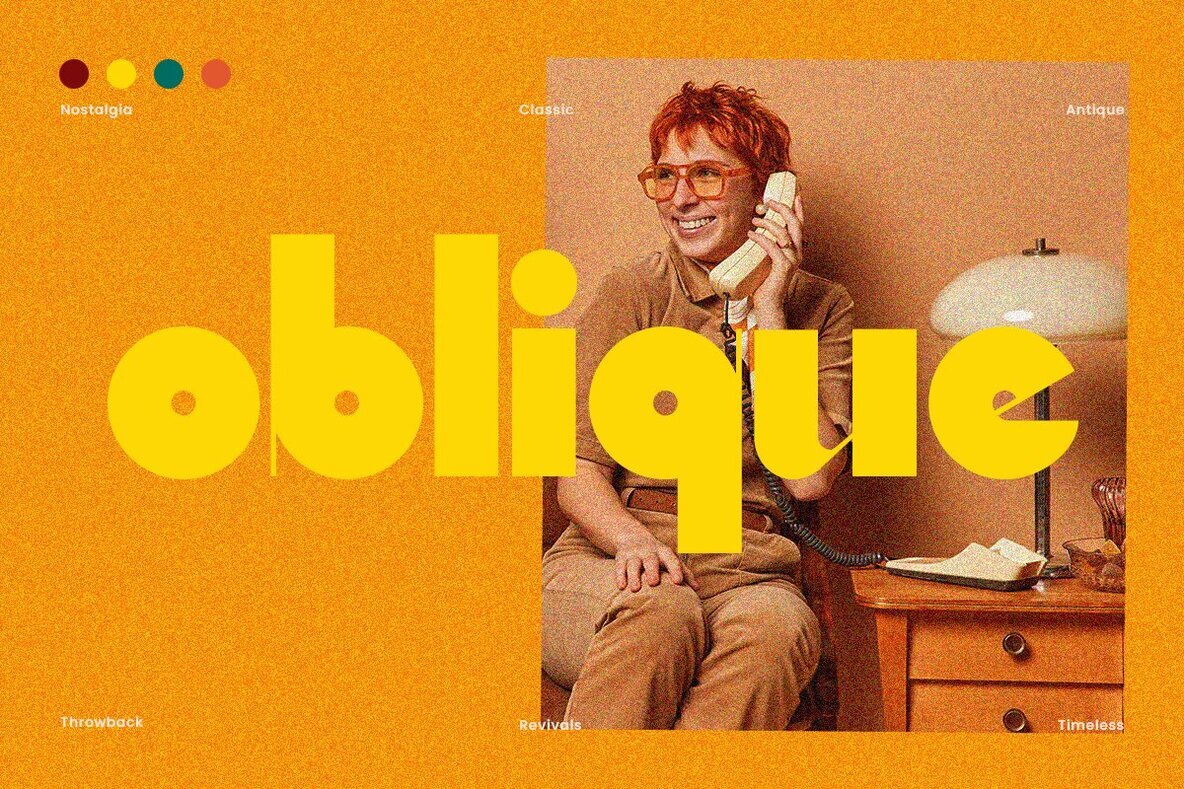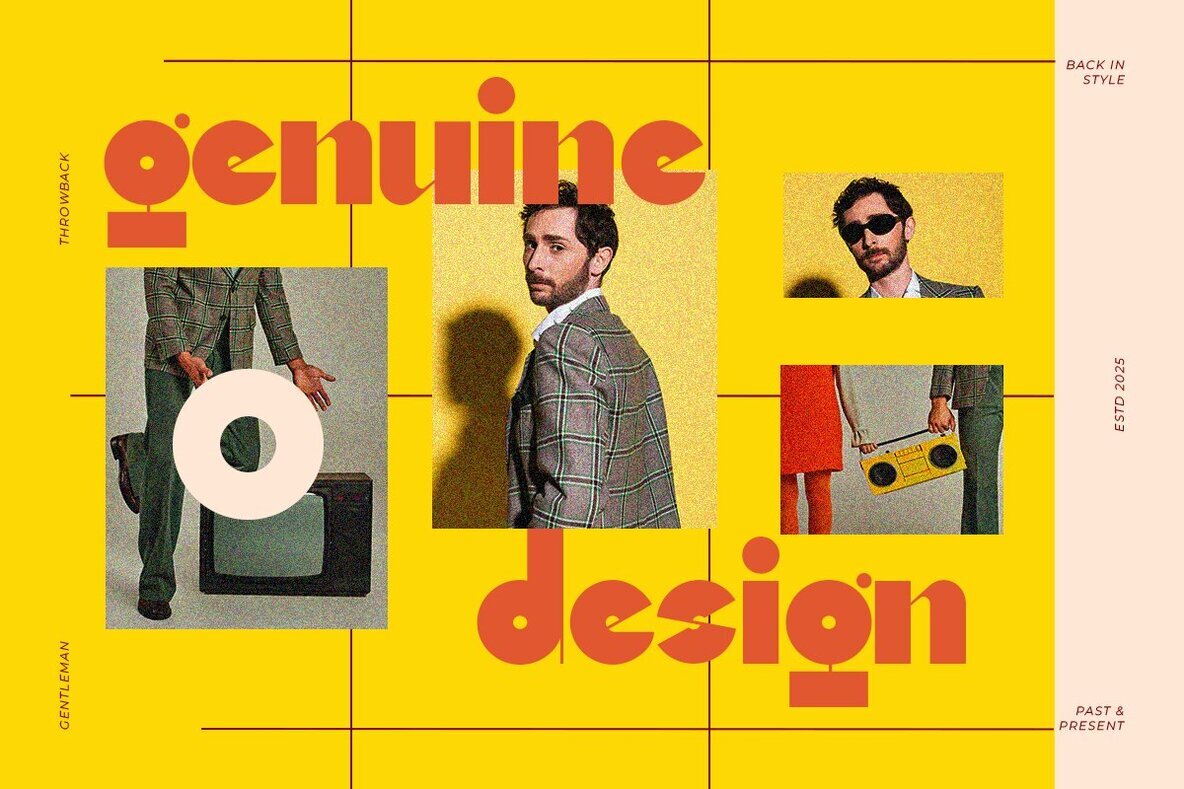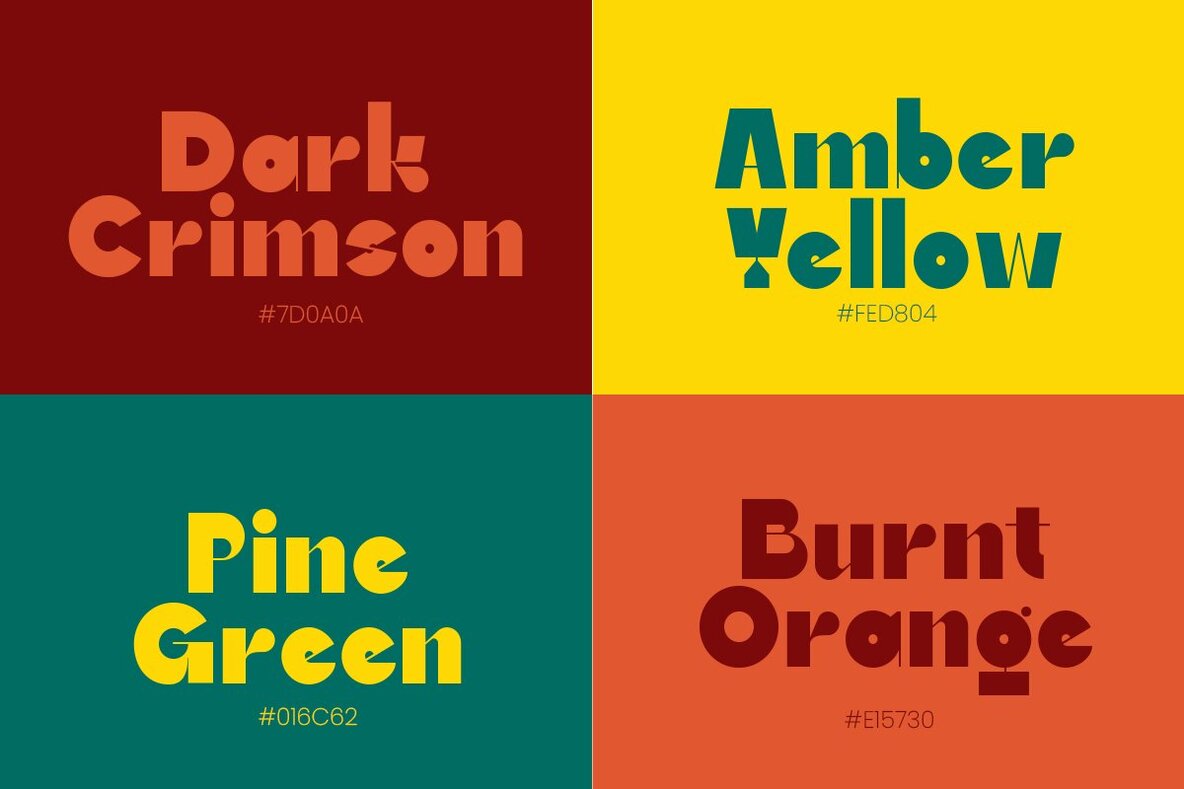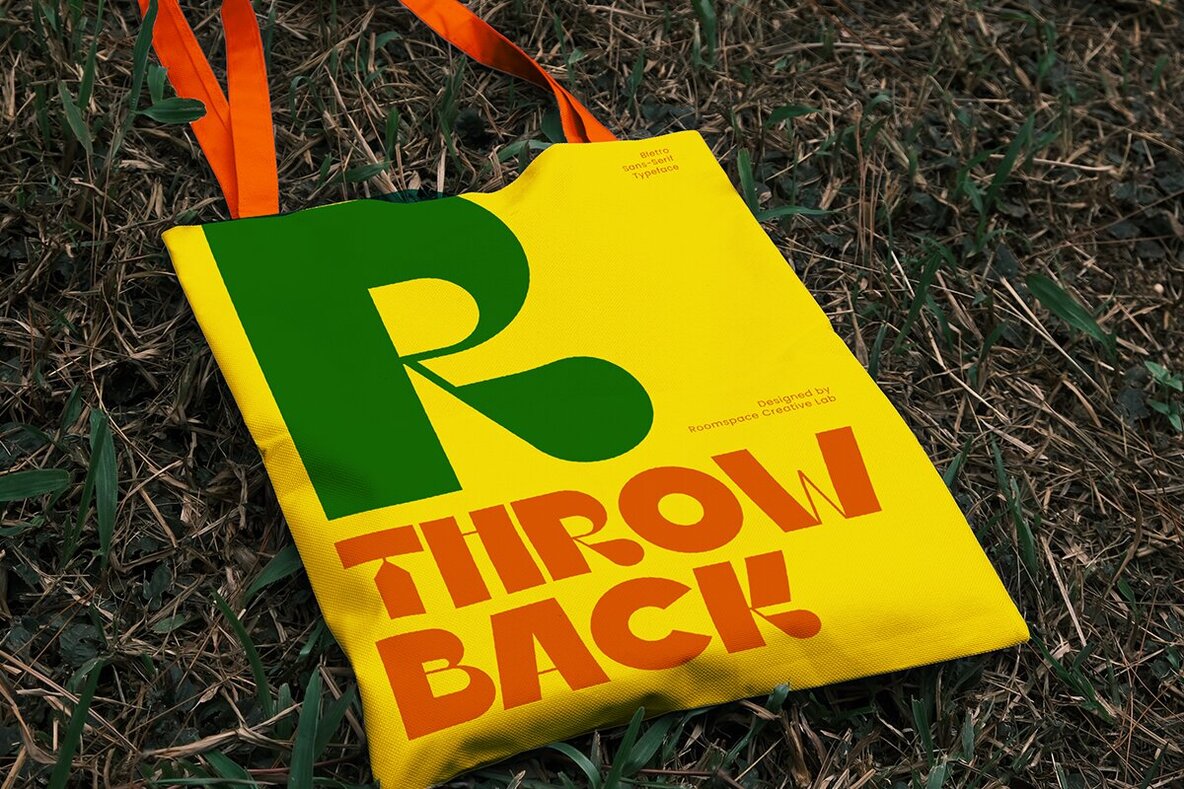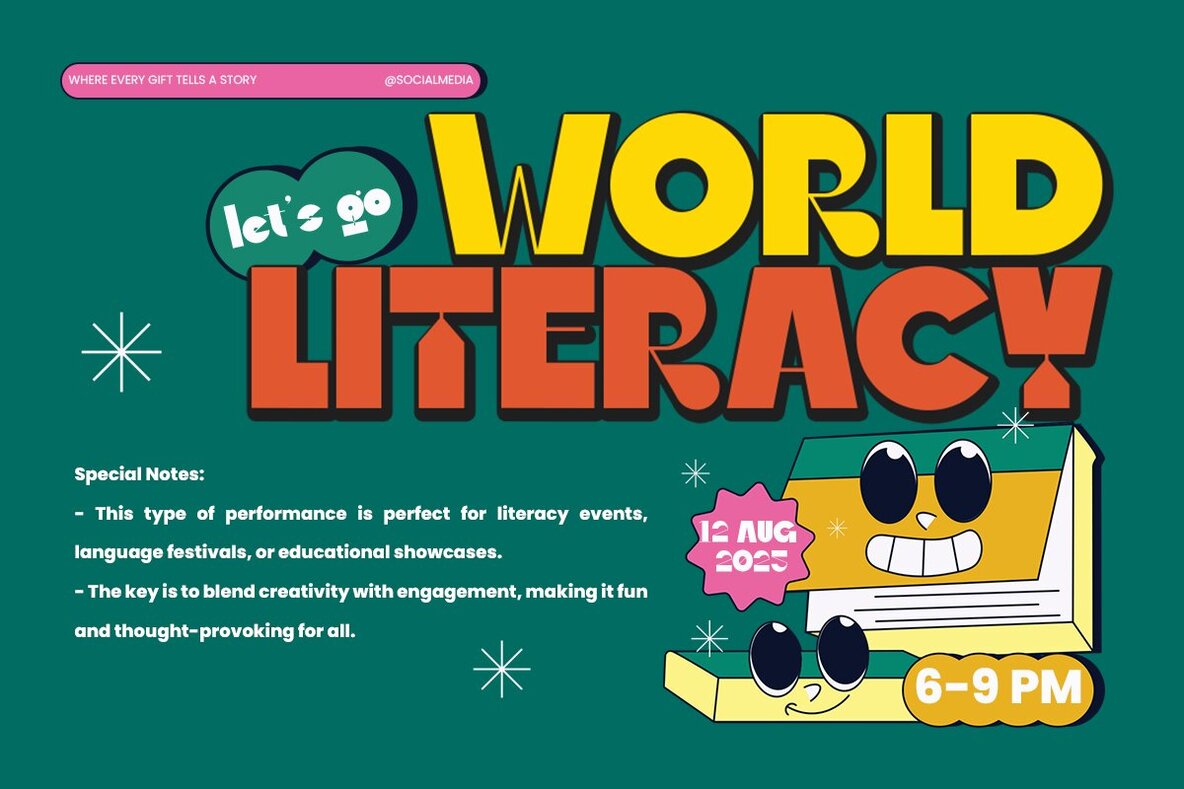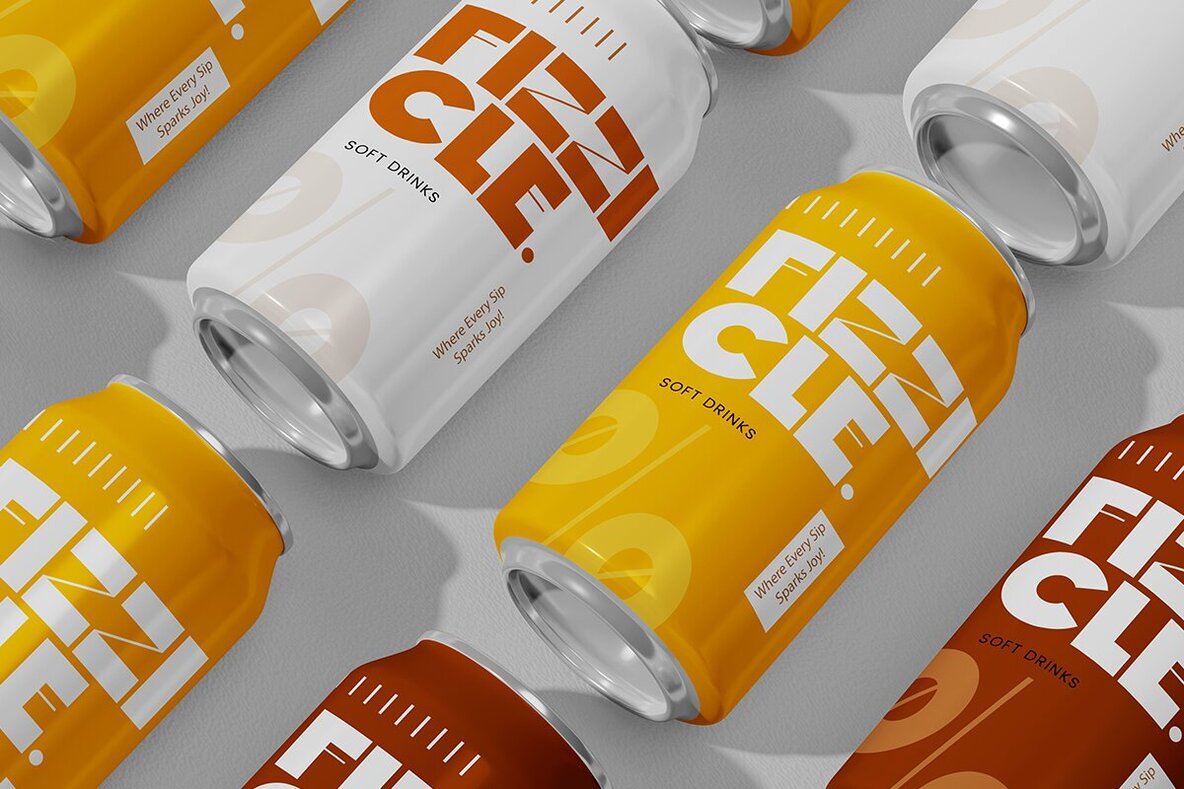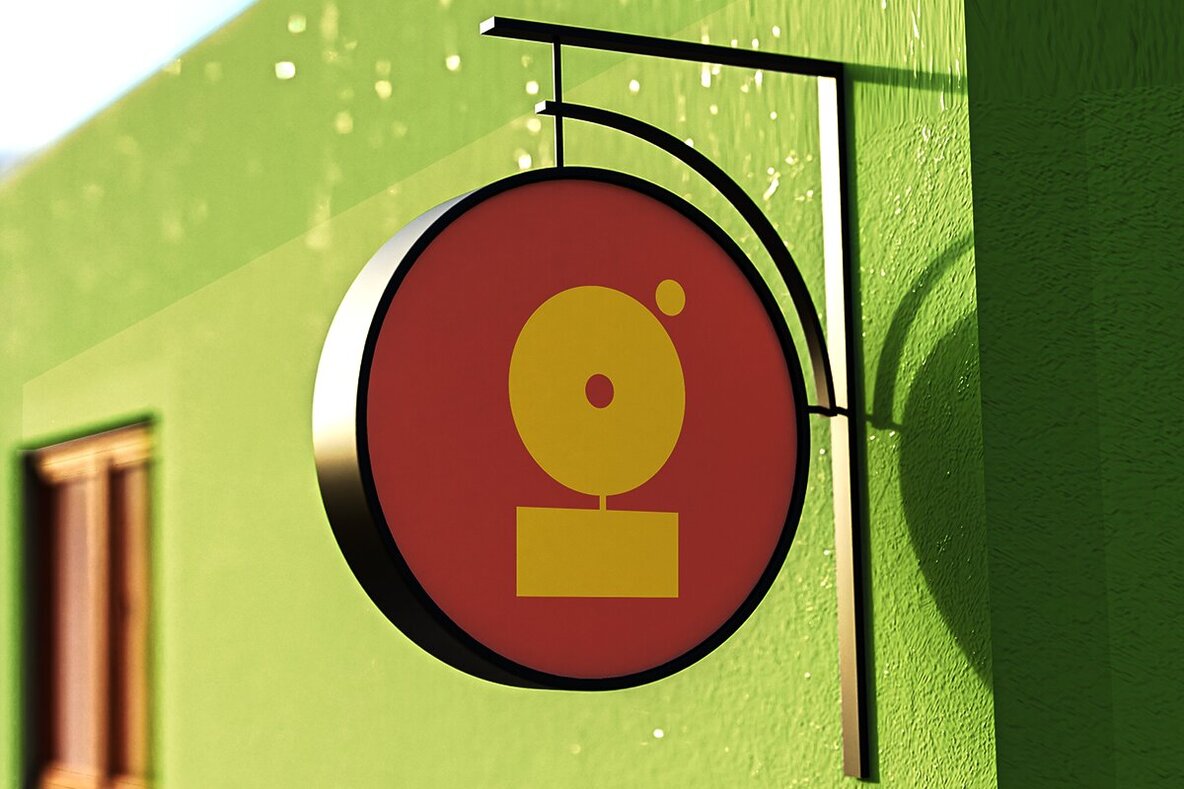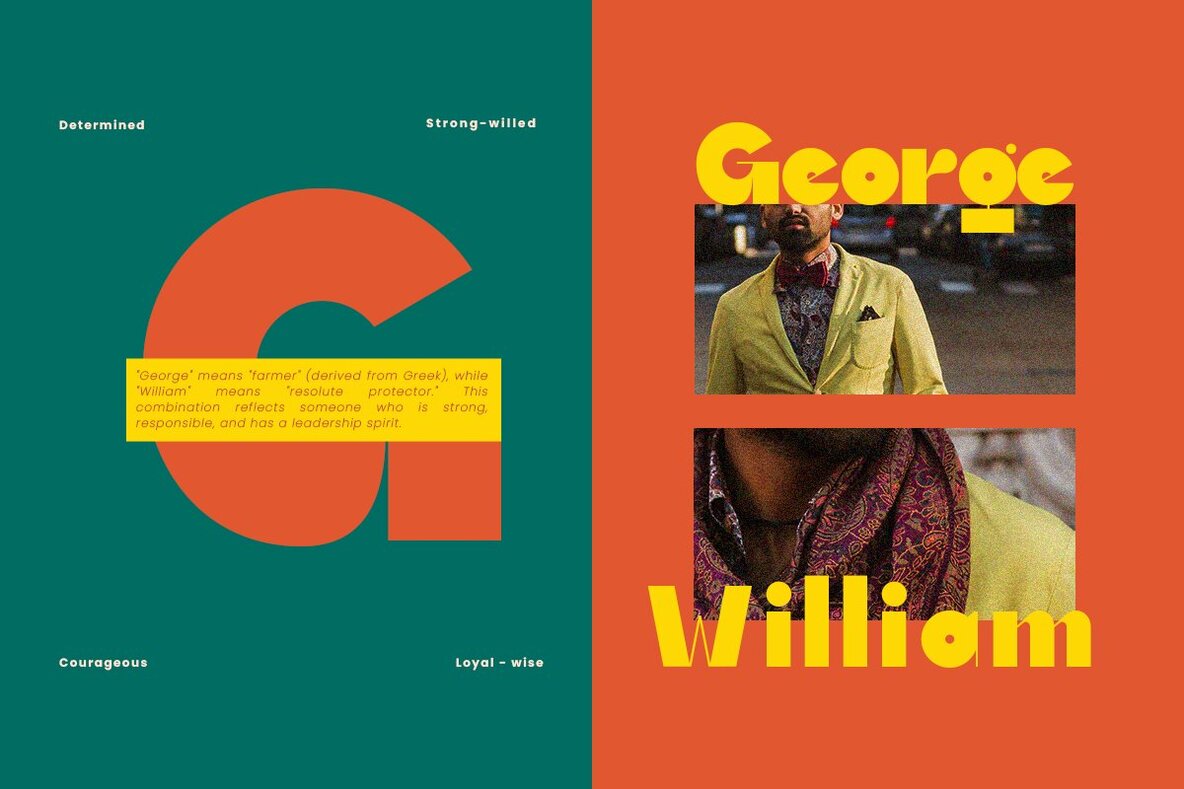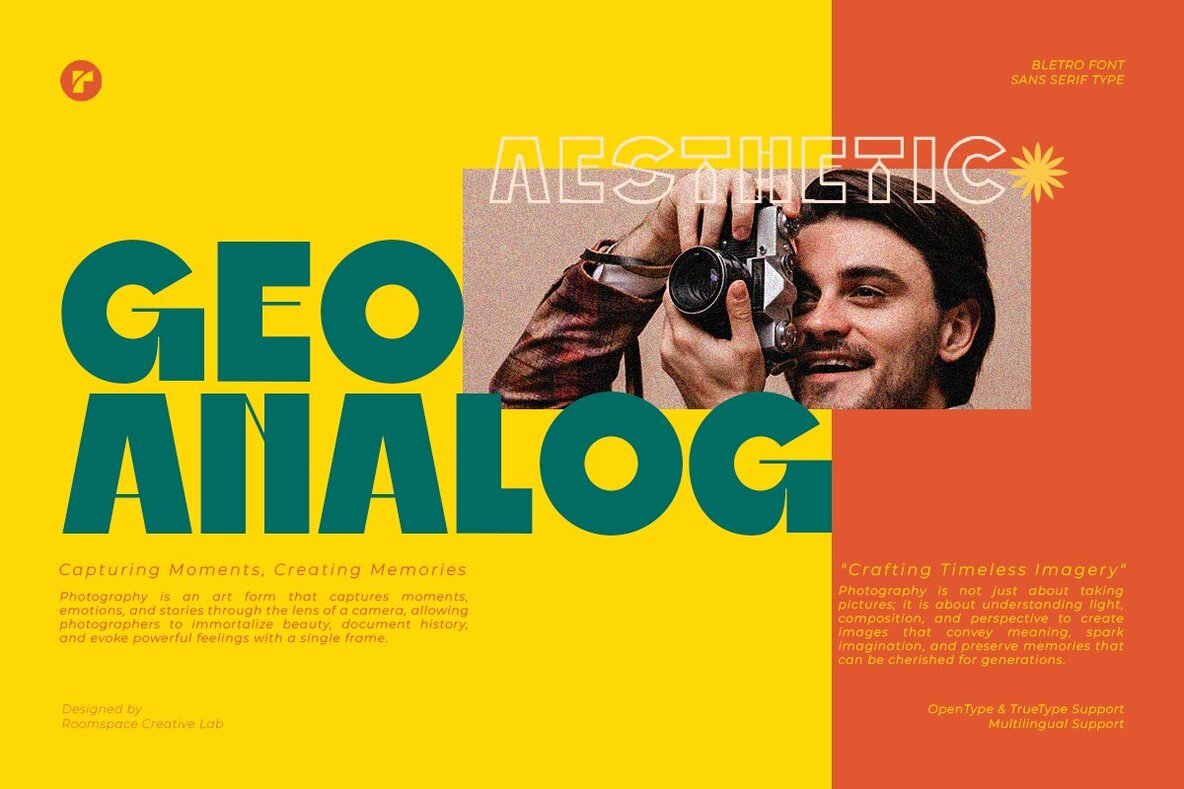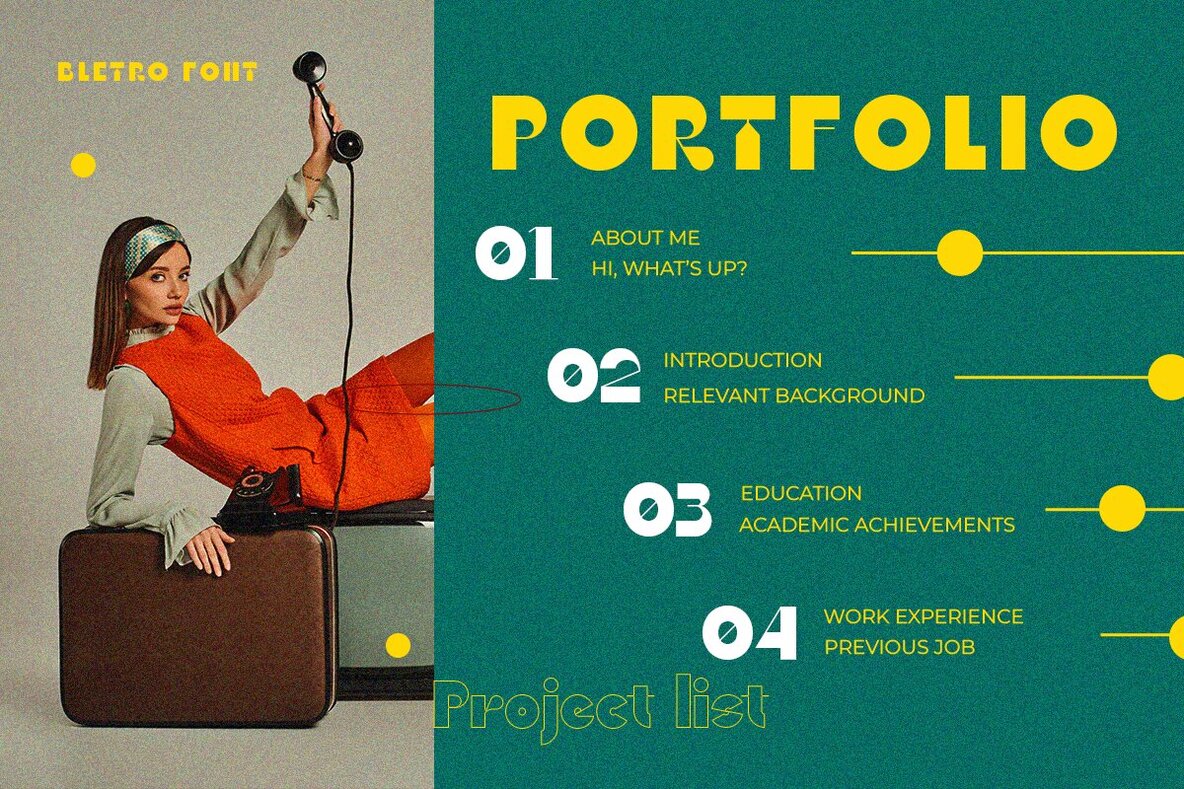
Bletro Font
Bletro is a stunning sans serif display font that perfectly balances modern and retro aesthetics. Designed with geometric shapes, bold thickness, and sharp angles, this font exudes a unique charm ideal for creating eye-catching headlines, logos, branding materials, and creative posters. Whether you're aiming for a vintage aesthetic or a clean, modern font, Bletro seamlessly adapts to elevate any design project. This bold typeface combines elegance and stylish font design, making it perfect for graphic design, decorative typography, or even minimalist font projects. Its versatility shines across applications such as branding font, poster font, or a headline font for social media campaigns. With multilingual font support, OpenType and TrueType compatibility, and a clean, aesthetic font structure, Bletro is the ultimate choice for designers seeking both artistic font appeal and functionality. Features: Support